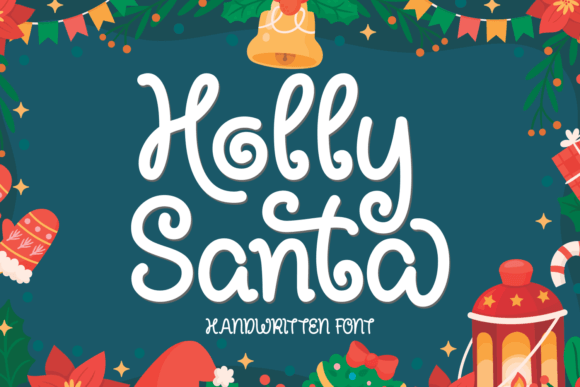
Feel the warmth and joy of the yuletide season with Holly Santa Font, a charming script font that captures the essence of Christmas cheer. Picture yourself crafting heartfelt holiday cards, designing festive posters, or creating unique gift tags that exude warmth and goodwill. The swirly characters of Holly Santa Font dance across your designs, spreading Christmas cheer with every letter.
Embrace the magic of the season and let your creativity flow. Holly Santa Font is perfect for adding a touch of whimsy and enchantment to your Christmas-themed designs. Its playful curves and loops will add a touch of magic to your holiday creations, making them stand out and capture the hearts of your audience.
Unleash your artistic spirit and explore the endless possibilities of Holly Santa Font. Whether you're designing Christmas invitations, creating personalized ornaments, or adding a festive touch to your website, this font will bring a smile to everyone's face. Its versatility extends beyond Christmas projects, making it a delightful choice for crafting whimsical designs all year round.
From heartwarming holiday greetings to enchanting invitations, Holly Santa Font is the perfect companion for your festive designs. Its elegant charm will add a touch of cheer to any project, making it the ultimate font choice for spreading holiday joy.
So, why settle for ordinary fonts when you can have Holly Santa Font? Its spirited characters will ignite your creativity, turning your designs into captivating masterpieces that capture the true spirit of Christmas. Embrace the magic of the season and let Holly Santa Font transform your designs into something extraordinary.